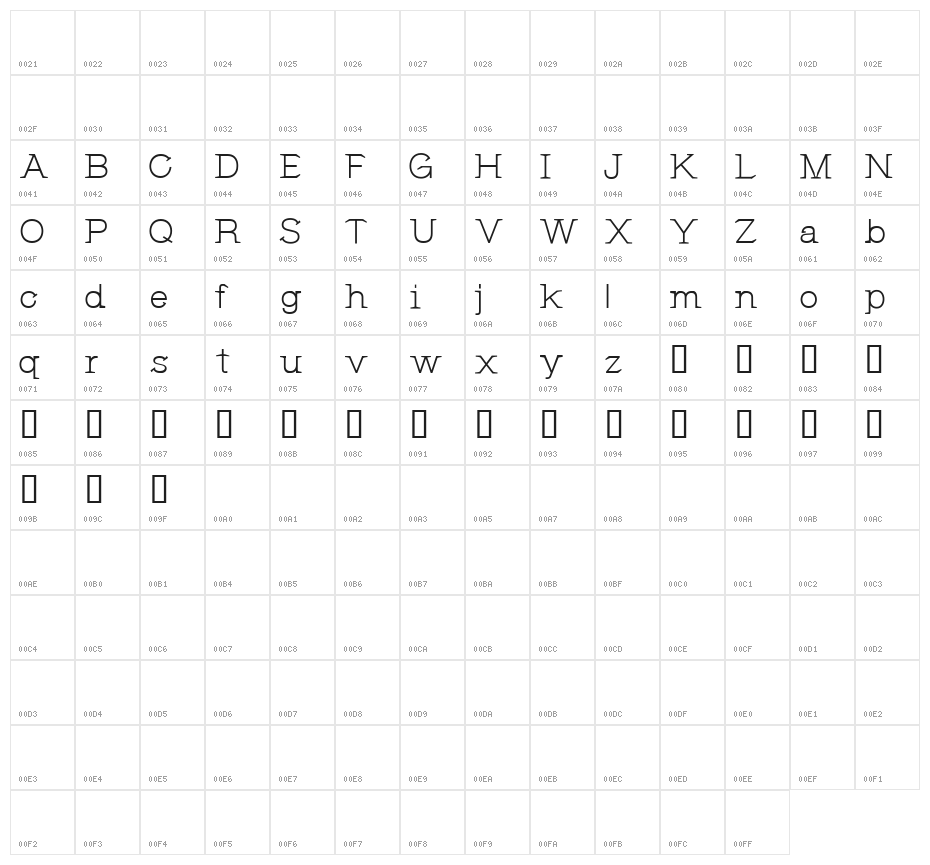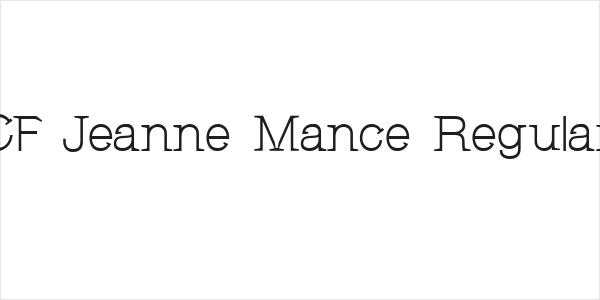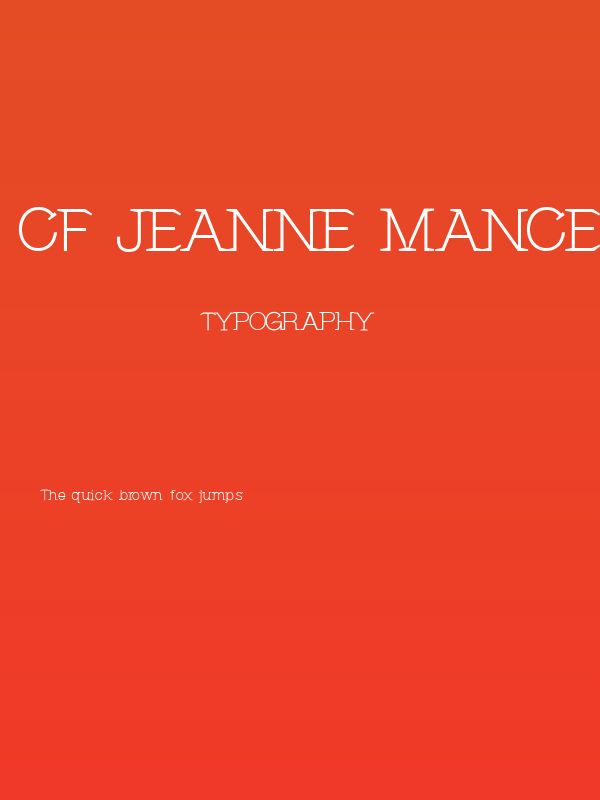
CF Jeanne Mance Regular Font
CF Jeanne Mance Regular Description
This font features a distinctive and elegant design with a modern twist. The characters are crafted with a geometric precision, showcasing a blend of sharp angles and smooth curves. The uppercase letters are bold and commanding, while the lowercase letters maintain a consistent and harmonious flow. The numerals are clear and easily readable, making them suitable for various applications. Special characters are thoughtfully designed to complement the overall aesthetic. This font's unique style makes it versatile for both digital and print media.
| Proposed Projects | Ideal for branding, editorial design, and digital interfaces. |